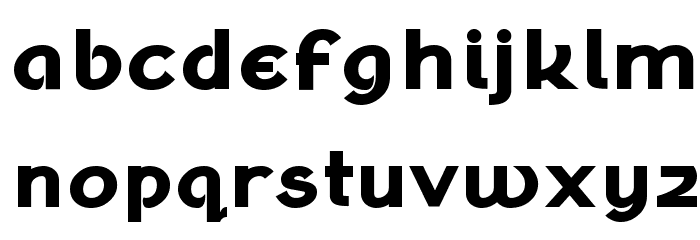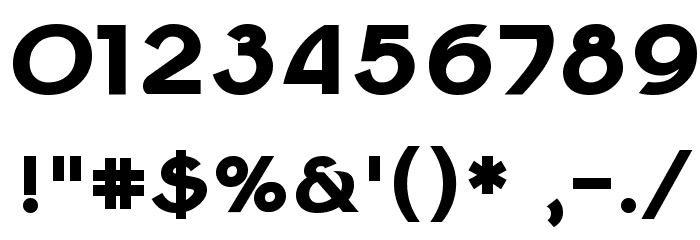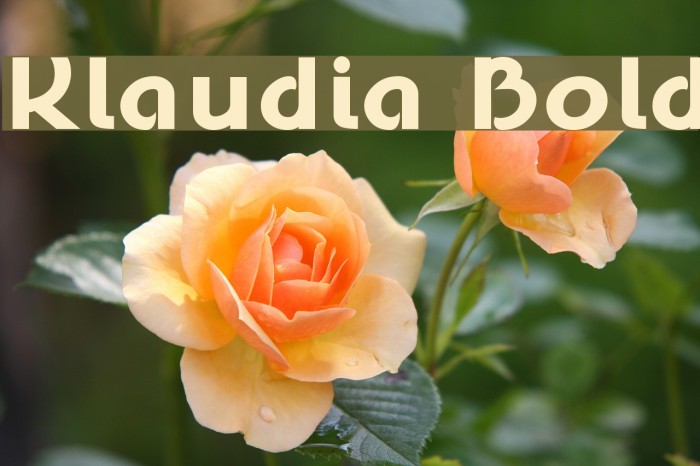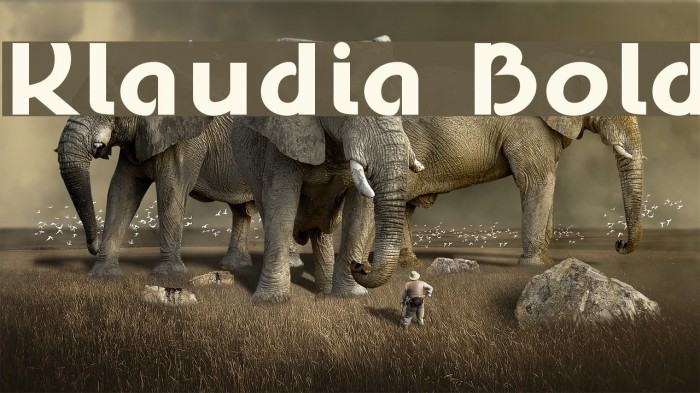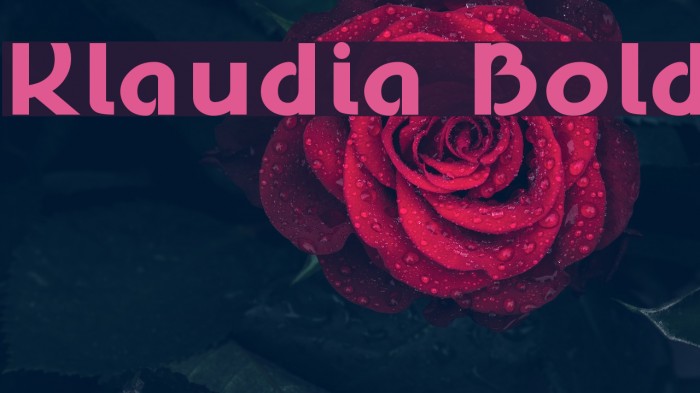
Klaudia Bold Font
This font features a bold and modern design with clean, rounded edges and a geometric structure. The uppercase letters are uniform in height, creating a cohesive and balanced appearance. The lowercase letters maintain a similar style, with a slightly softer and more approachable feel. Numbers are clear and legible, making them suitable for a variety of applications. The special characters are well-integrated, ensuring consistency across all glyphs. This font's boldness and clarity make it ideal for impactful designs.
A bold, modern font with geometric shapes and rounded edges.
- Proposed Projects: Ideal for branding, advertising, posters, and headlines that require a strong visual impact.